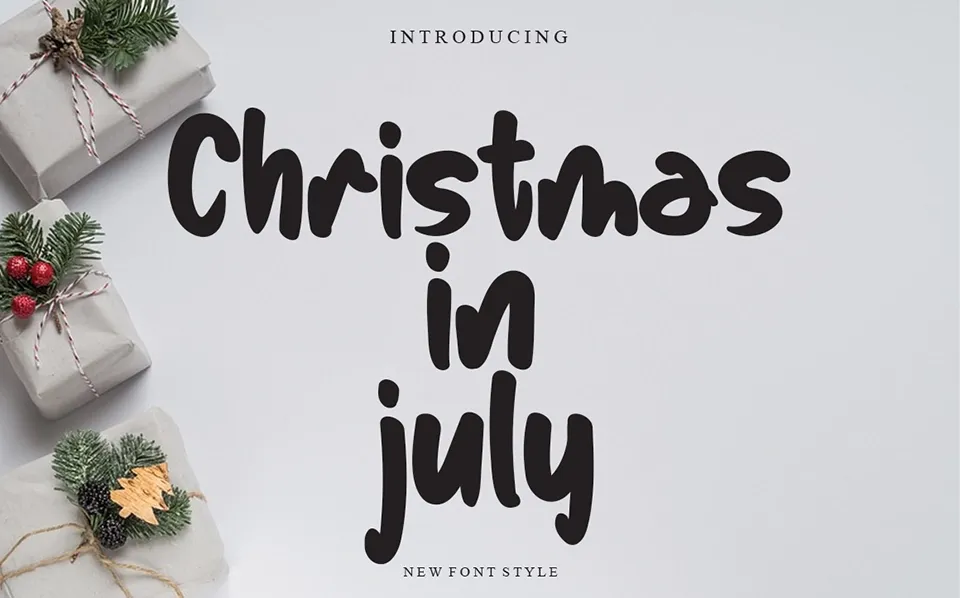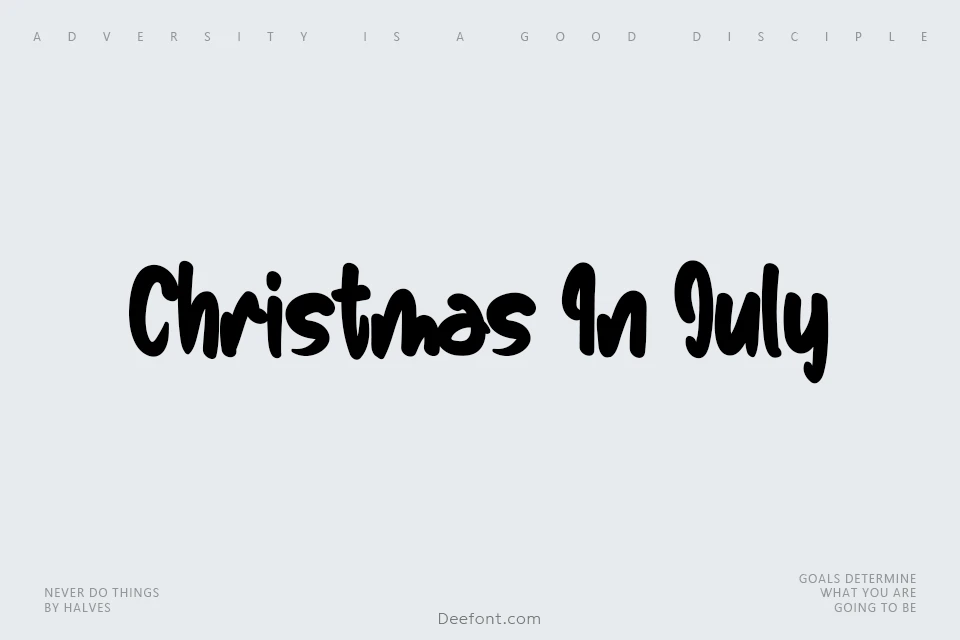
Christmas In July Font
Christmas in July Font is a charming script and handwritten font that captures the festive spirit of the holiday season all year round. This versatile decorative typeface features elegant letterforms reminiscent of delicate snowflakes, creating a whimsical and captivating atmosphere perfect for holiday-themed designs. The font is ideal for elegant invitations, logos, branding, holiday cards, seasonal promotions, and social media posts.